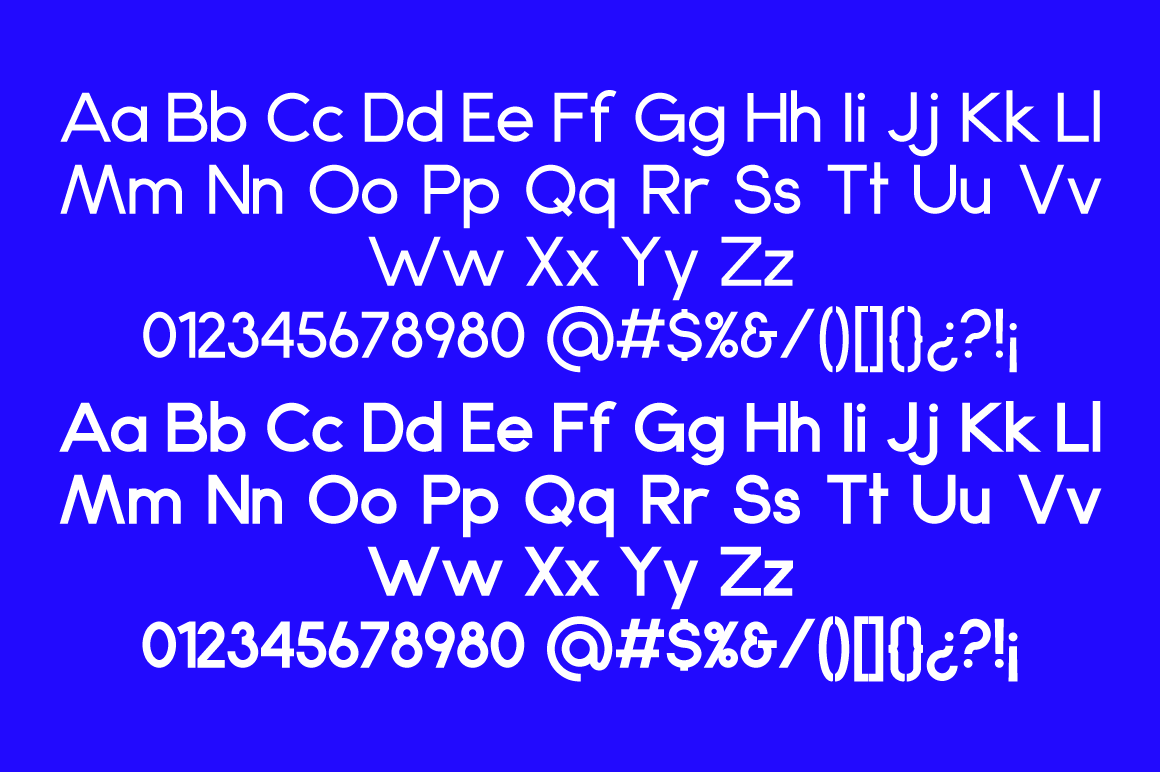
Introducing Anke Sans Font: A Geometric and Versatile Typeface for Designers
In the world of typography, a well-designed font can make all the difference in creating visually appealing and effective designs. For designers and crafters looking for a geometric, simple yet legible sans serif typeface, look no further than Anke Sans Font. This versatile font is perfect for a wide range of applications, from posters and logos to letterheads and more.
What is Anke Sans Font?
Anke Sans Font is a geometric sans serif typeface that boasts a clean and minimalist aesthetic. Its simple yet elegant design makes it an excellent choice for designers seeking a font that can convey a sense of modernity and sophistication. The font includes uppercase, lowercase, and diacritic characters, ensuring that you have all the characters you need to create professional-looking designs.
Key Features of Anke Sans Font
- Geometric Design: Anke Sans Font features a geometric design that gives it a clean and modern look.
- Simple yet Legible: The font’s simple design ensures that it is highly legible, making it perfect for body text and headings.
- Comprehensive Character Set: The font includes uppercase, lowercase, and diacritic characters, providing you with all the characters you need to create professional-looking designs.
- Versatile: Anke Sans Font can be used for a wide range of applications, from posters and logos to letterheads and more.
Uses of Anke Sans Font
Anke Sans Font is an incredibly versatile typeface that can be used for a variety of design projects. Here are some examples of how you can use this font:
- Posters: Create eye-catching posters with Anke Sans Font’s clean and modern design.
- Logos: Use Anke Sans Font to create professional-looking logos that convey a sense of modernity and sophistication.
- Letterheads: Add a touch of elegance to your letterheads with Anke Sans Font’s simple yet legible design.
- Business Cards: Create business cards that stand out with Anke Sans Font’s geometric and modern aesthetic.
- Web Design: Use Anke Sans Font to create clean and modern website designs that are highly legible.
Why Choose Anke Sans Font?
There are many reasons why designers and crafters should consider using Anke Sans Font for their design projects. Here are a few:
- Unique Design: Anke Sans Font features a unique geometric design that sets it apart from other sans serif typefaces.
- Highly Legible: The font’s simple design ensures that it is highly legible, making it perfect for body text and headings.
- Versatile: Anke Sans Font can be used for a wide range of applications, from posters and logos to letterheads and more.
In conclusion, Anke Sans Font is an excellent choice for designers and crafters looking for a geometric, simple yet legible sans serif typeface. Its clean and modern design, comprehensive character set, and versatility make it perfect for a wide range of design projects. Whether you’re creating posters, logos, letterheads, or more, Anke Sans Font is a great option to consider.